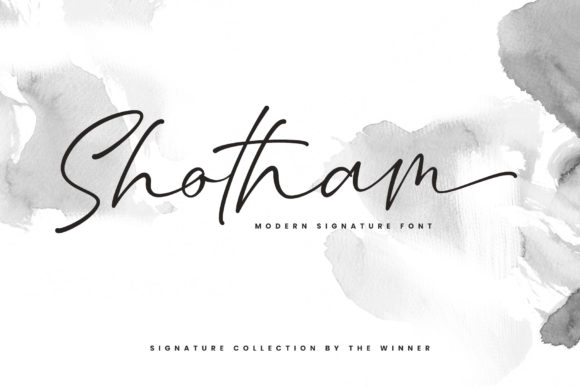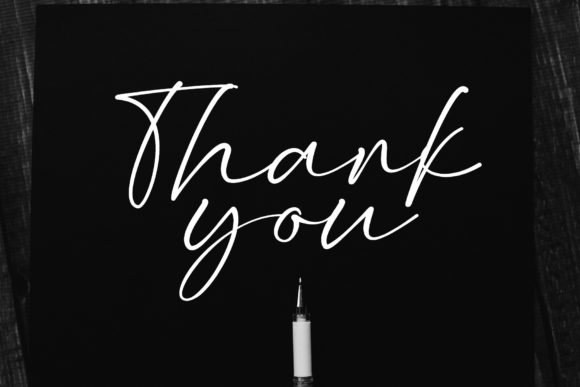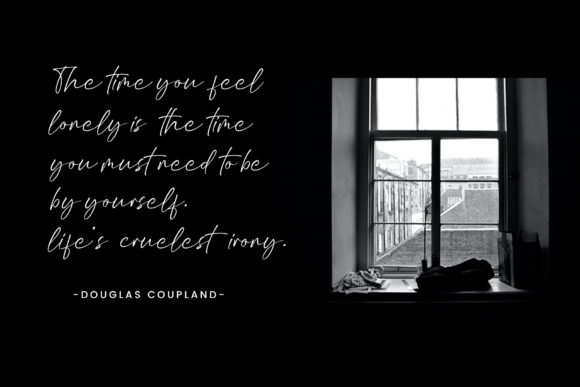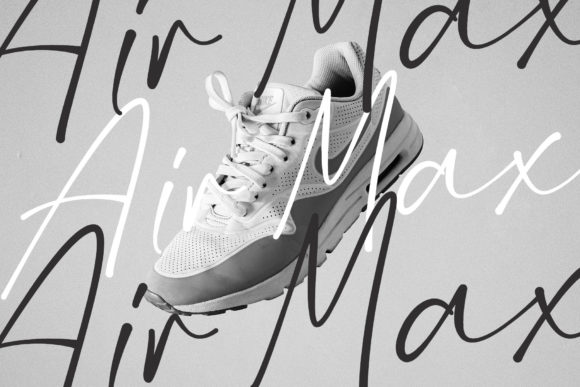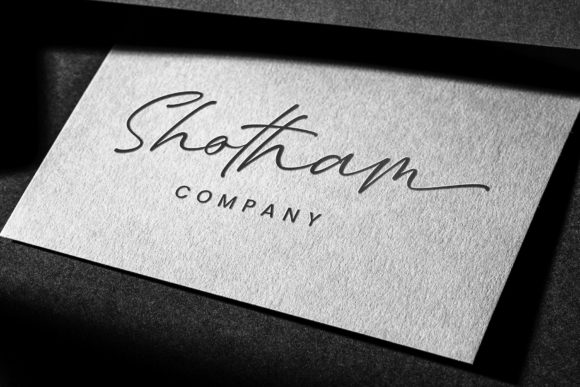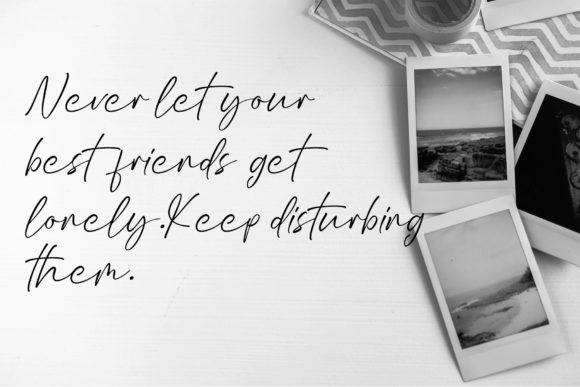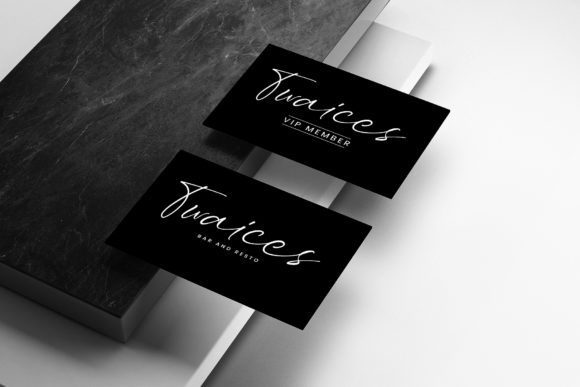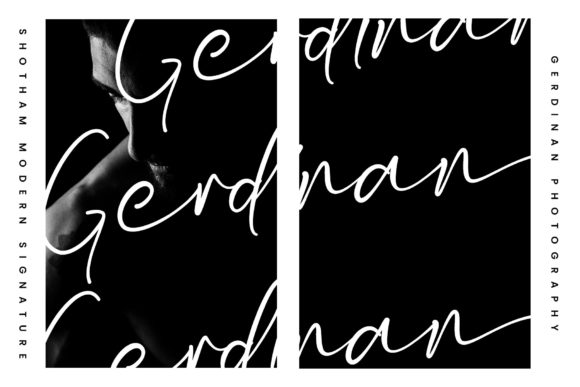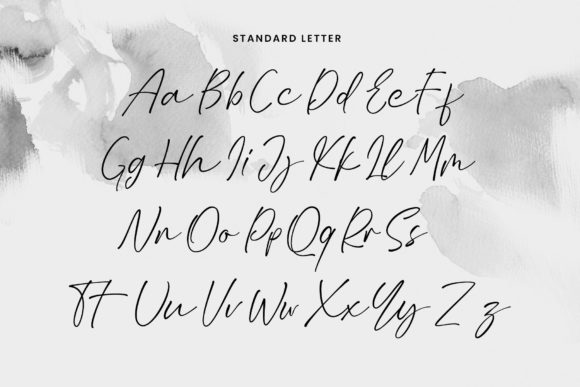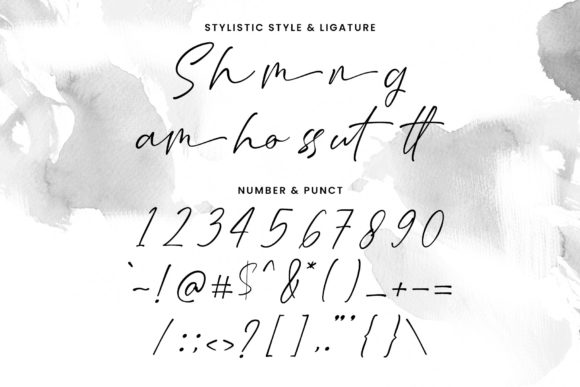
Shotham Font
About Shotham Font
Shotham is indeed a fashionable and delicate script font that exudes style and sophistication. With its clean, thin, and smooth vibe, it is a versatile font that can enhance a wide range of designs.
The well-balanced and meticulously designed characters of Shotham give it a sense of elegance and refinement. Each letter flows seamlessly into the next, creating a visually pleasing and harmonious composition. The thin strokes and delicate curves add to its overall sleek and modern look.
The clean and thin lines of Shotham contribute to its contemporary and sophisticated aesthetic. The minimalistic approach allows the font to maintain a clean and uncluttered appearance, making it suitable for various design projects. Whether you’re working on logos, branding materials, invitations, or other creative endeavors, Shotham can add a touch of elegance and style.
The smooth and fluid strokes of Shotham give it a sense of grace and sophistication. Each letter is carefully crafted to maintain a consistent and visually appealing appearance. The delicate curves and intricate details make it captivating and eye-catching, making it an excellent choice for projects that require a refined and fashionable look.
Despite its delicate nature, Shotham maintains excellent readability. The clarity of each character ensures that your message is conveyed effectively, making it suitable for both display and body text. Whether used in headlines, titles, or other prominent design elements, Shotham delivers a balance between style and legibility.
Shotham’s versatility extends to different design mediums, making it suitable for both digital and print applications. Whether you’re designing for websites, social media, or printed materials, Shotham adapts well and maintains its fashionable and delicate appearance.
In summary, Shotham is a fashionable and delicate script font with a clean, thin, and smooth vibe. It adds a touch of elegance and sophistication to any design project and is suitable for various purposes. If you’re looking to incorporate a fashionable and refined font into your designs, Shotham is a fantastic choice.